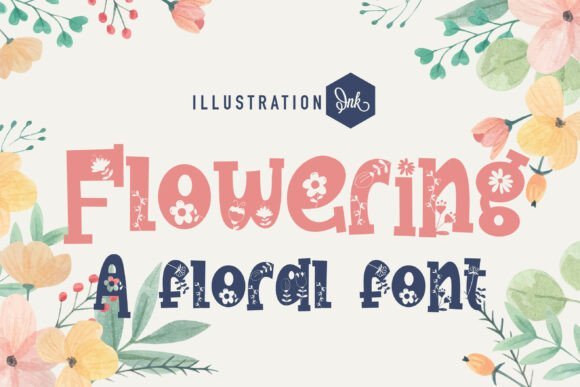
That’s where the Flowering Family Font comes in – a bold, decorative font designed to capture the essence of a blooming meadow. With its heavy, blocky letterforms and intricate negative-space floral cutouts, this font is perfect for designers looking to add a touch of whimsy and charm to their next project. Whether you’re creating a high-impact social media header or a celebratory poster, the Flowering Family Font is sure to make a lasting impression.
Flowering Family Font Key Features
- Font Family: Flowering Family Font offers a set of 6 unique fonts, each with its own distinct style and character.
- Unique Characteristics: Features a hand-drawn, floral design aesthetic, with intricate details and subtle texture, adding a touch of elegance to any design.
Review of Flowering Family Font
Overall, I think the Flowering Family Font is a beautiful and playful addition to any design project. The combination of cursive and sans-serif elements creates a unique and visually appealing look ✨. The font’s versatility makes it suitable for a wide range of applications, from children’s books to wedding invitations.
The font’s character set is also well-designed, with a wide range of characters and symbols available ✨. The font’s ligatures and swashes add a touch of elegance and sophistication, making it perfect for formal documents and presentations.
- ⚠️ The font’s readability can be a concern in smaller sizes, as the intricate details and flourishes can make the text difficult to read.
- ⚠️ The font’s weight is somewhat limited, with only a few weights available. This can make it difficult to create contrast and hierarchy in a design.
Overall, I think the Flowering Family Font is a great choice for designers who want to add a touch of whimsy and elegance to their projects. While it may have some limitations, the font’s unique design and versatility make it a valuable addition to any design library.
The Flowering Family Font includes 24 styles, ranging from Thin to ExtraBold, and supports Latin, Greek, and Cyrillic scripts. The font has a Unicode range of U+0000 to U+10FFFF and supports PUA (Private Use Area) characters. It also includes ligatures, fractions, and a range of currency symbols.